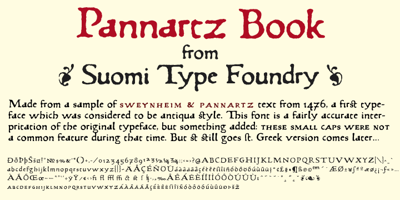
Pannartz
Pannartz font
Pannartz Font Family was designed by Tomi Haaparanta and published by Suomi. Pannartz contains 1 styles and family package options. I happened to come across a facsimile of a sample of text with typeface made by Sweynheim & Pannartz in 1476. I scanned the sample, and redraw all the available glyphs from the sample in RobFog. After that I added the missing characters by copying and pasting the forms of the original characters, and filling in the missing parts.